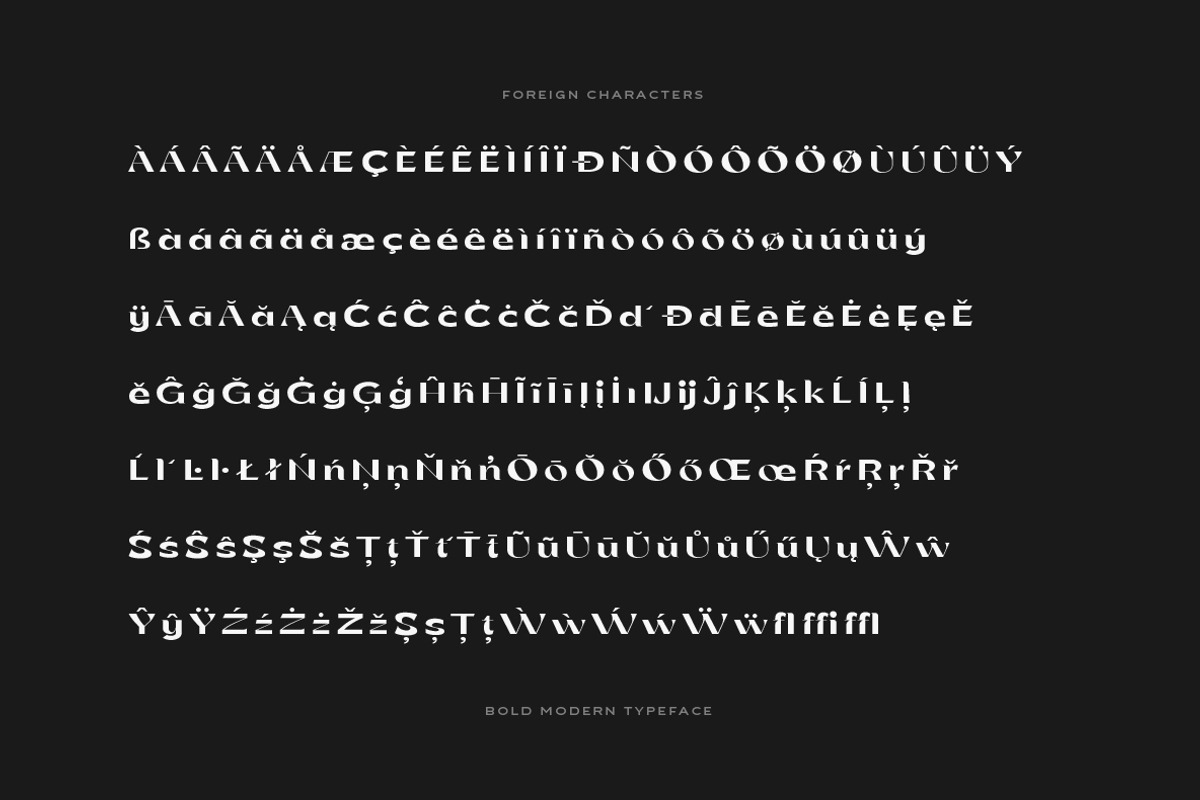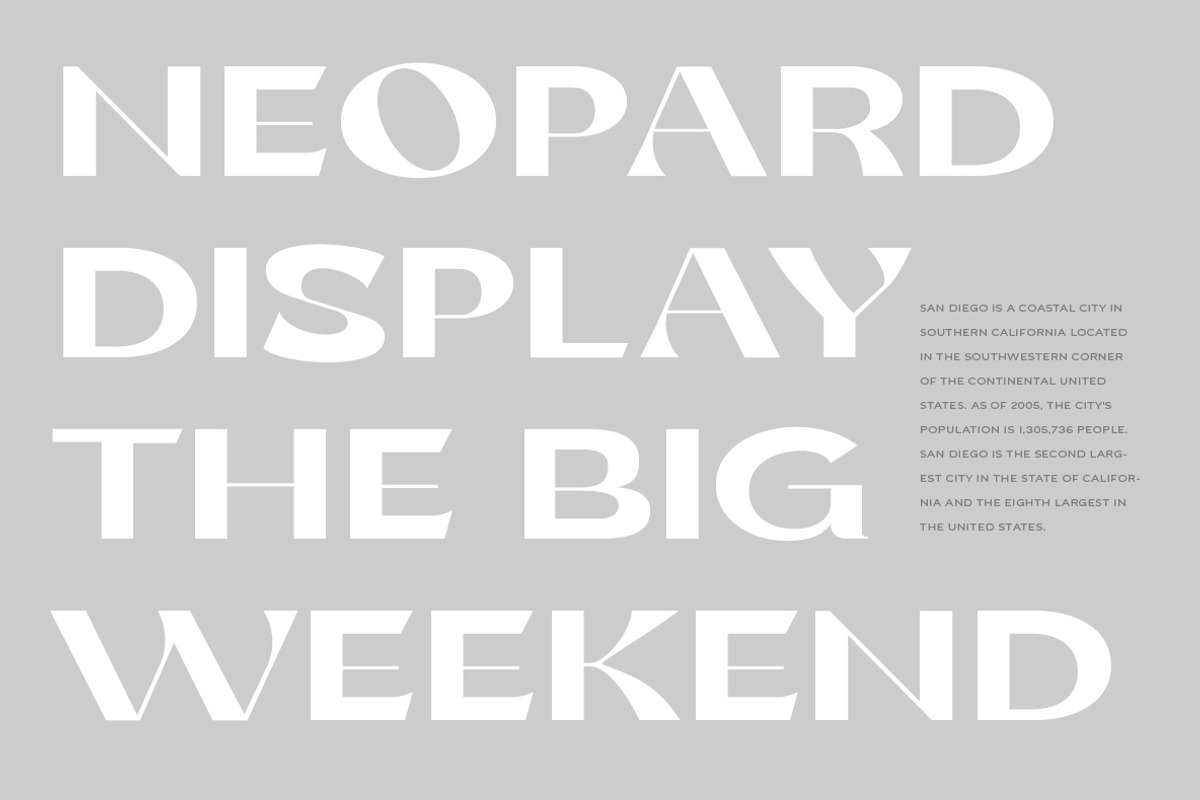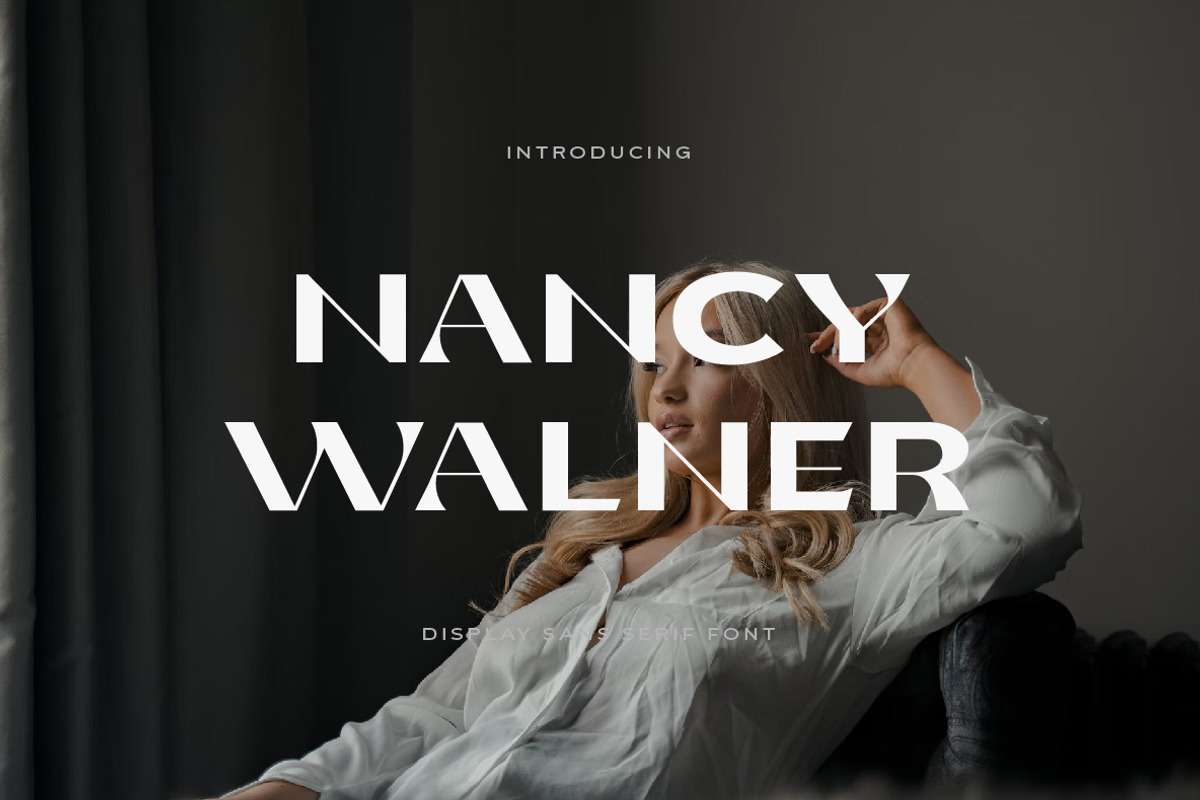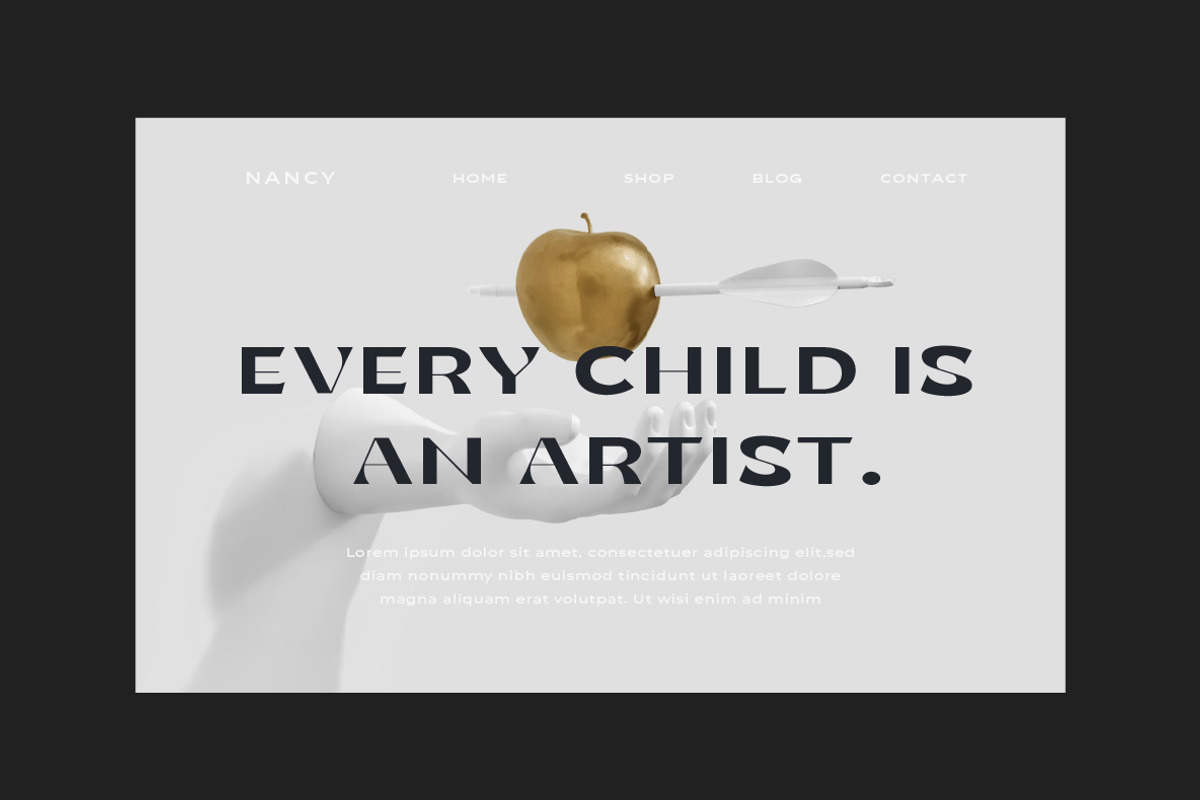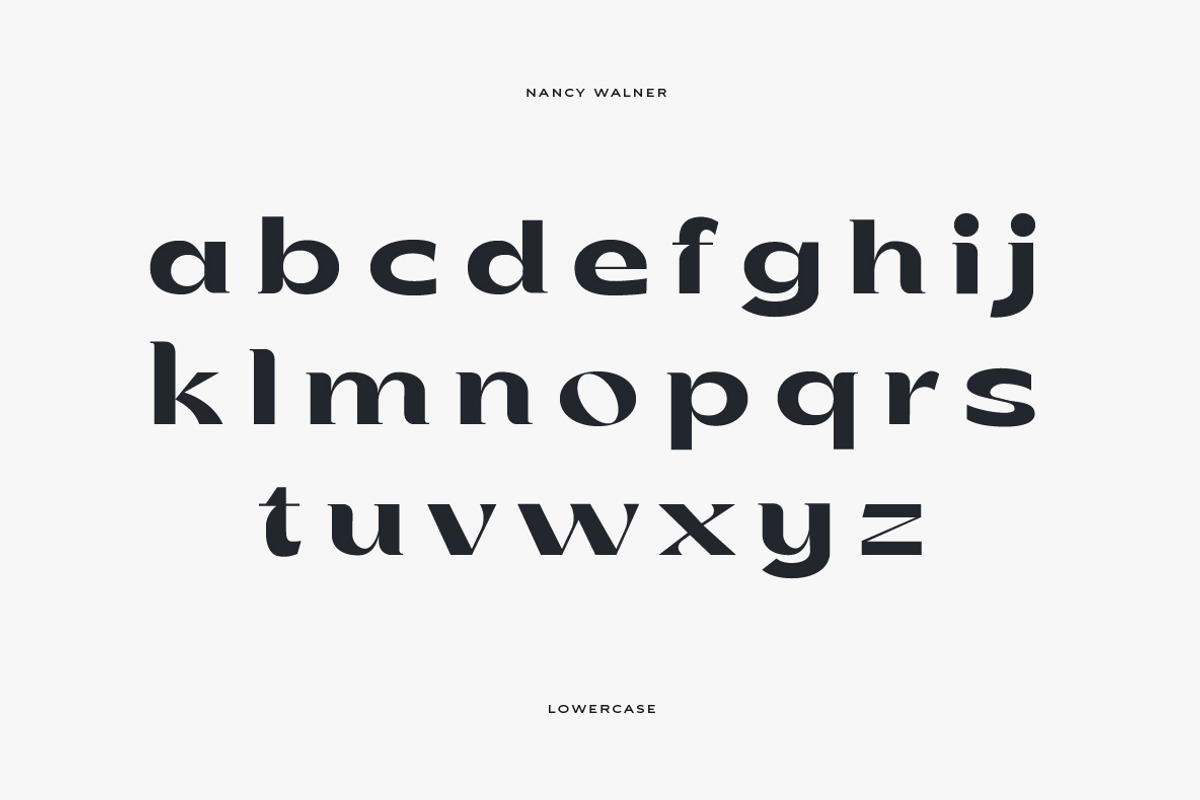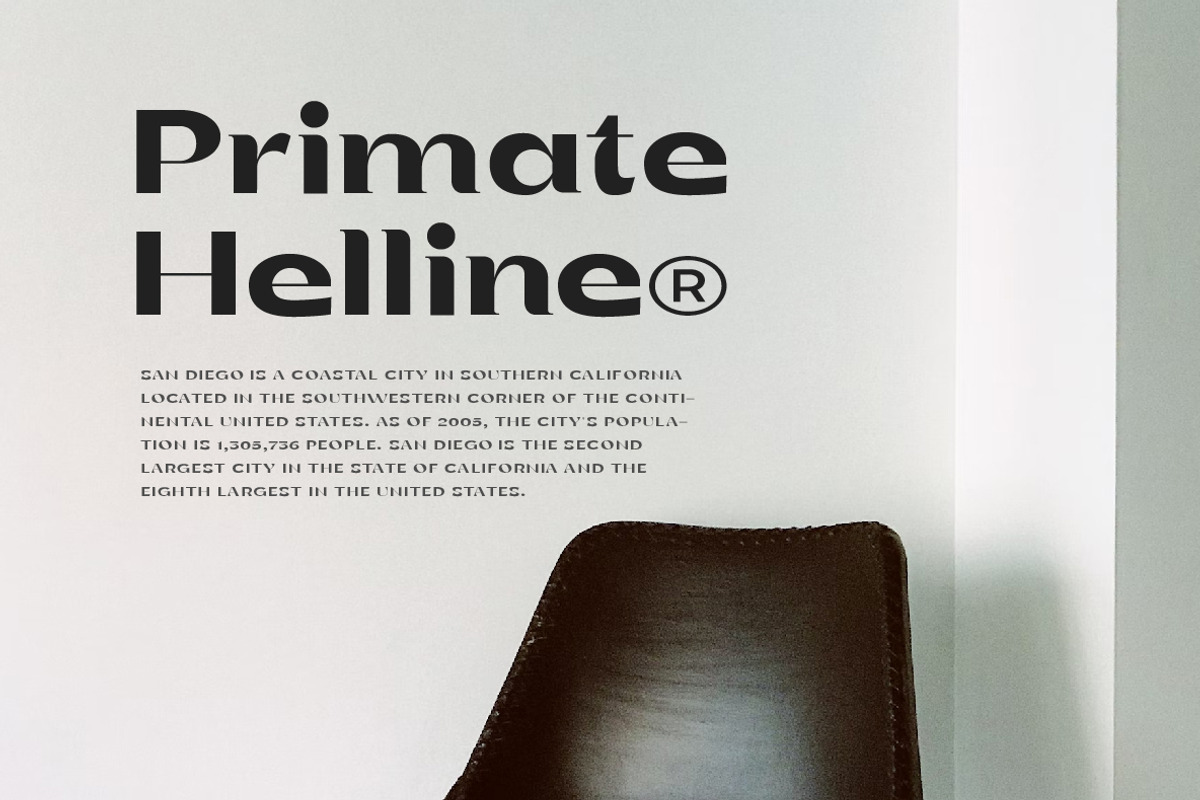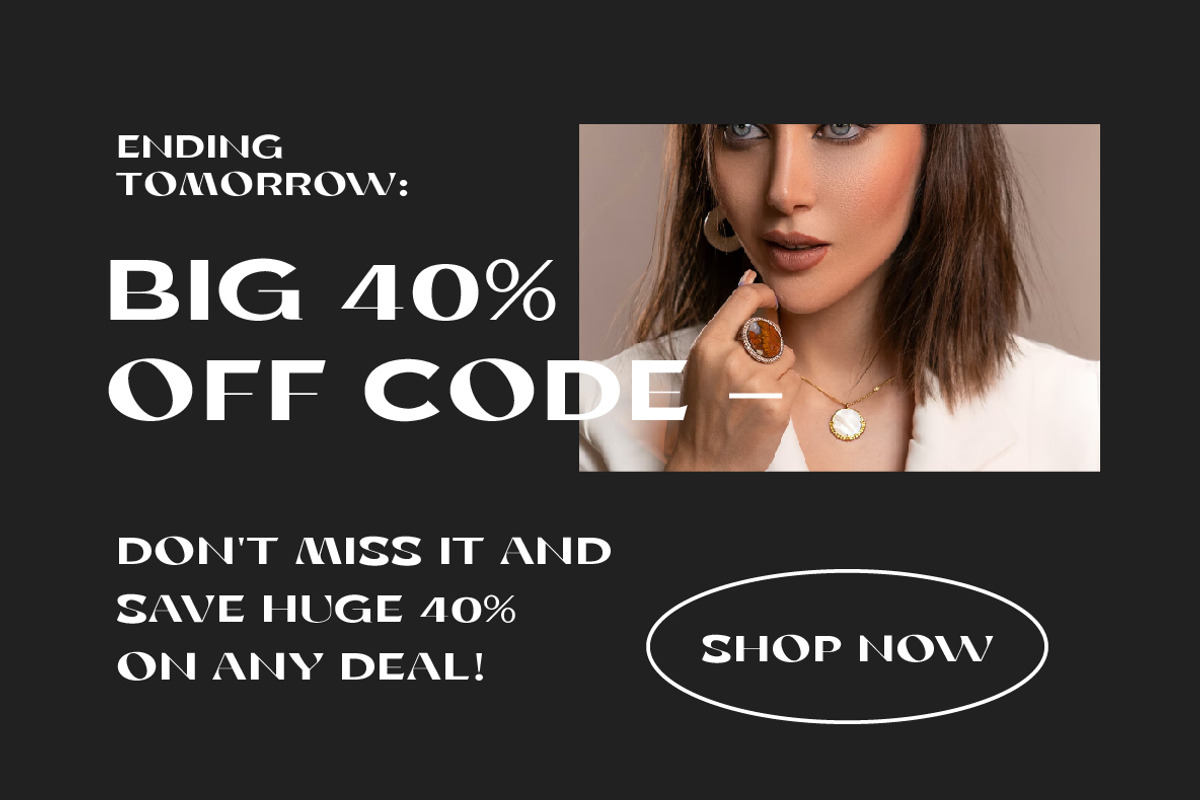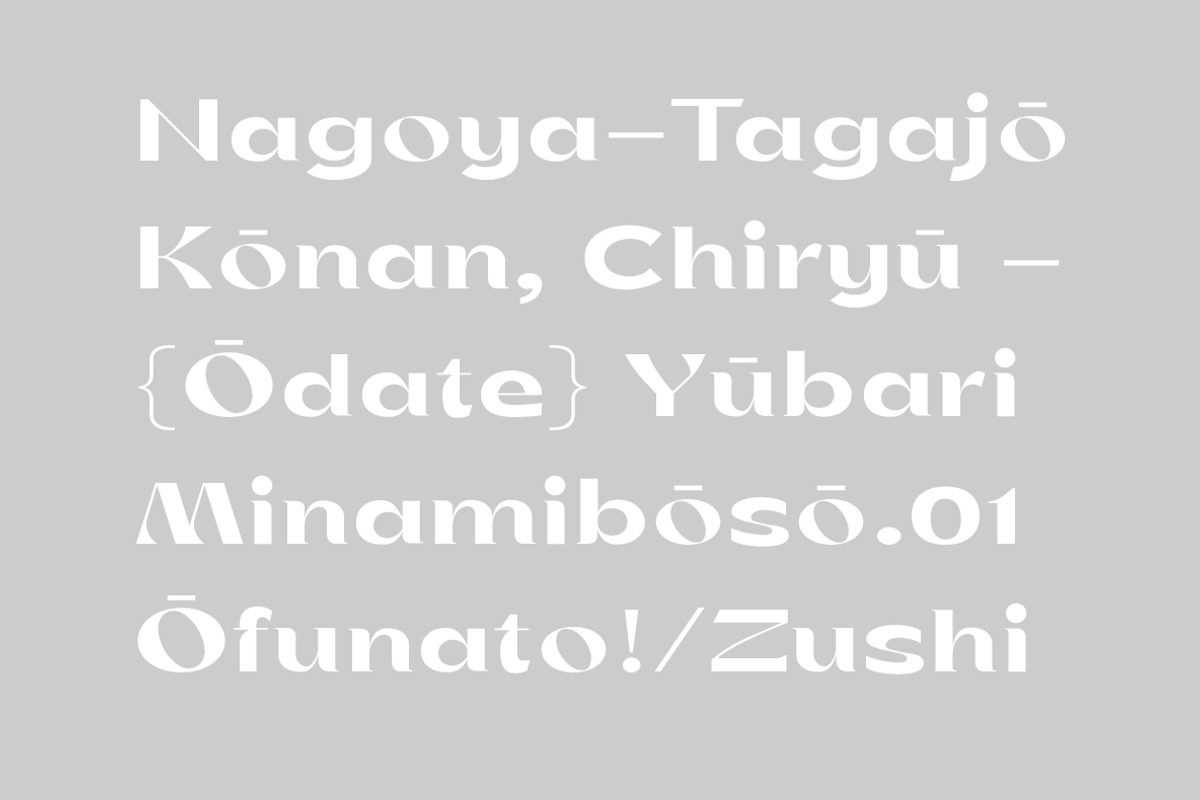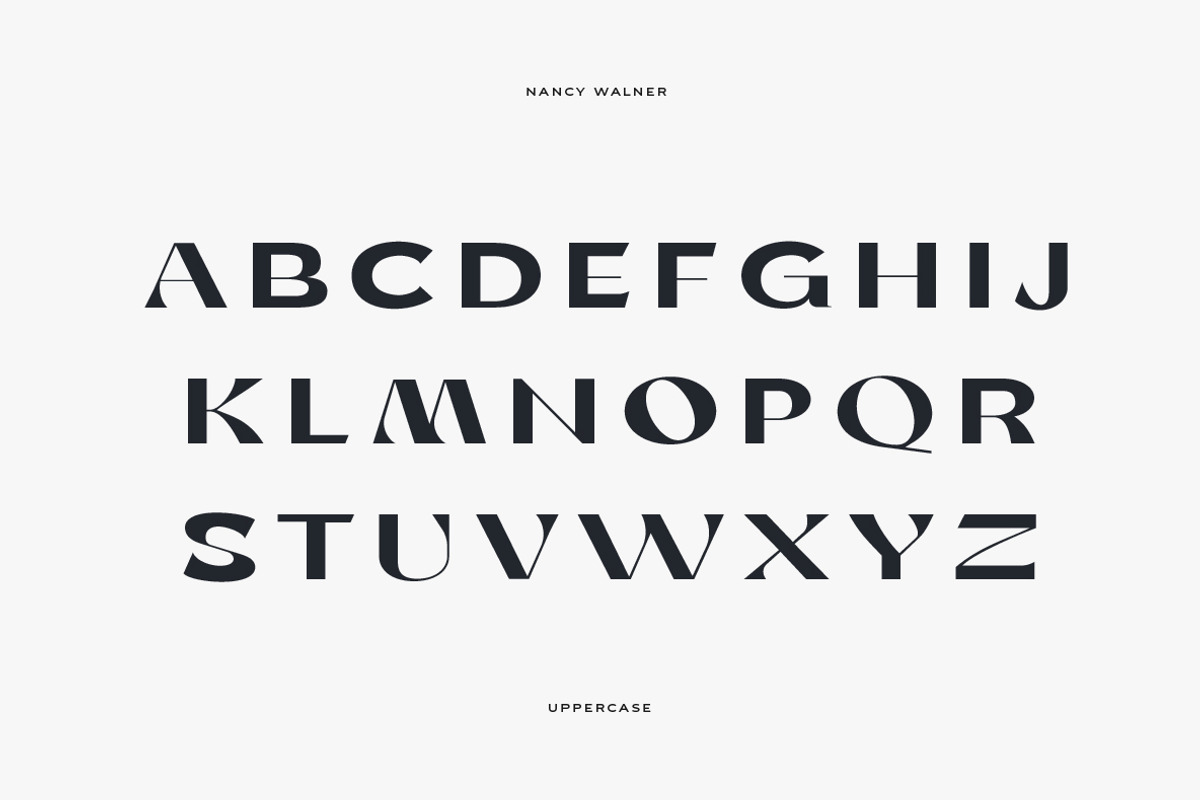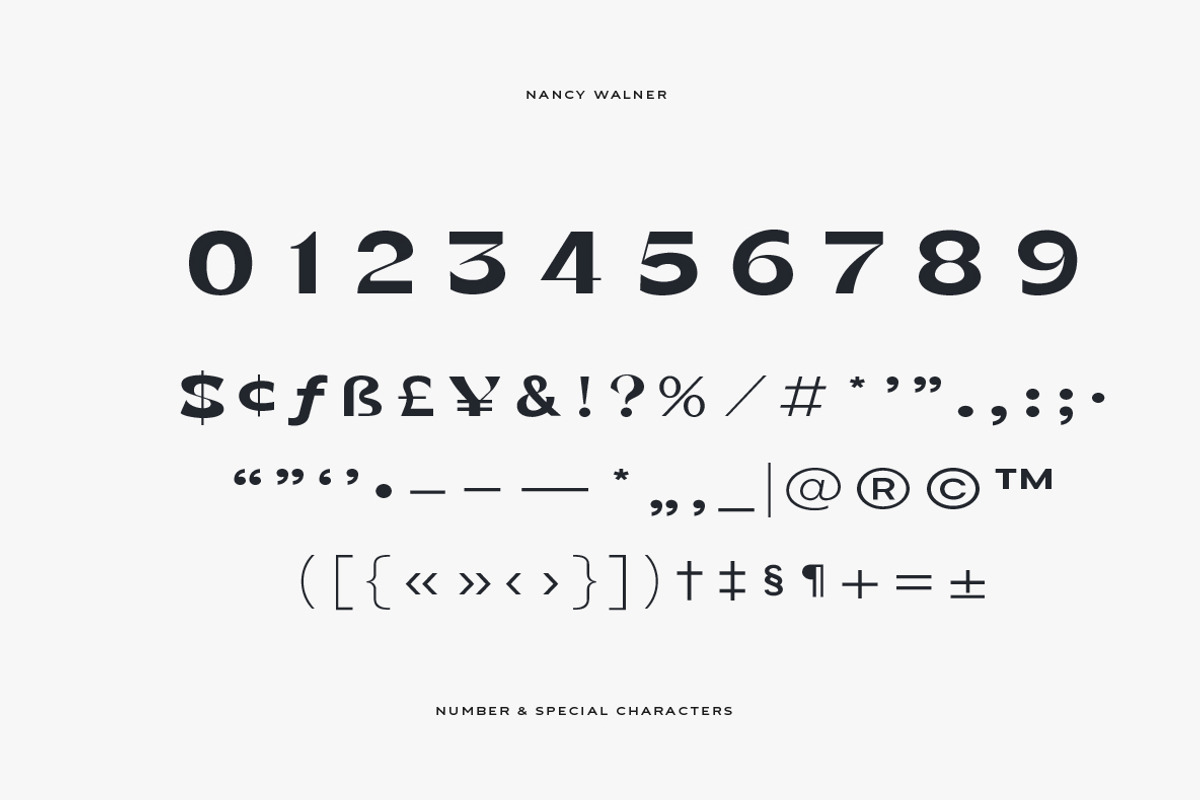
Nancy Walner Modern Sans
Nancy Walner fonts are perfect for high-end design branding, cinematic videos, social media titles and other cutting-edge creations! What sets this typeface apart from the others?
This typeface is easy to read yet sophisticated. And even if you already have a few talents, you don't need to go overboard and add others. Just use fonts of different sizes and layouts—and you'll end up with a truly stunning